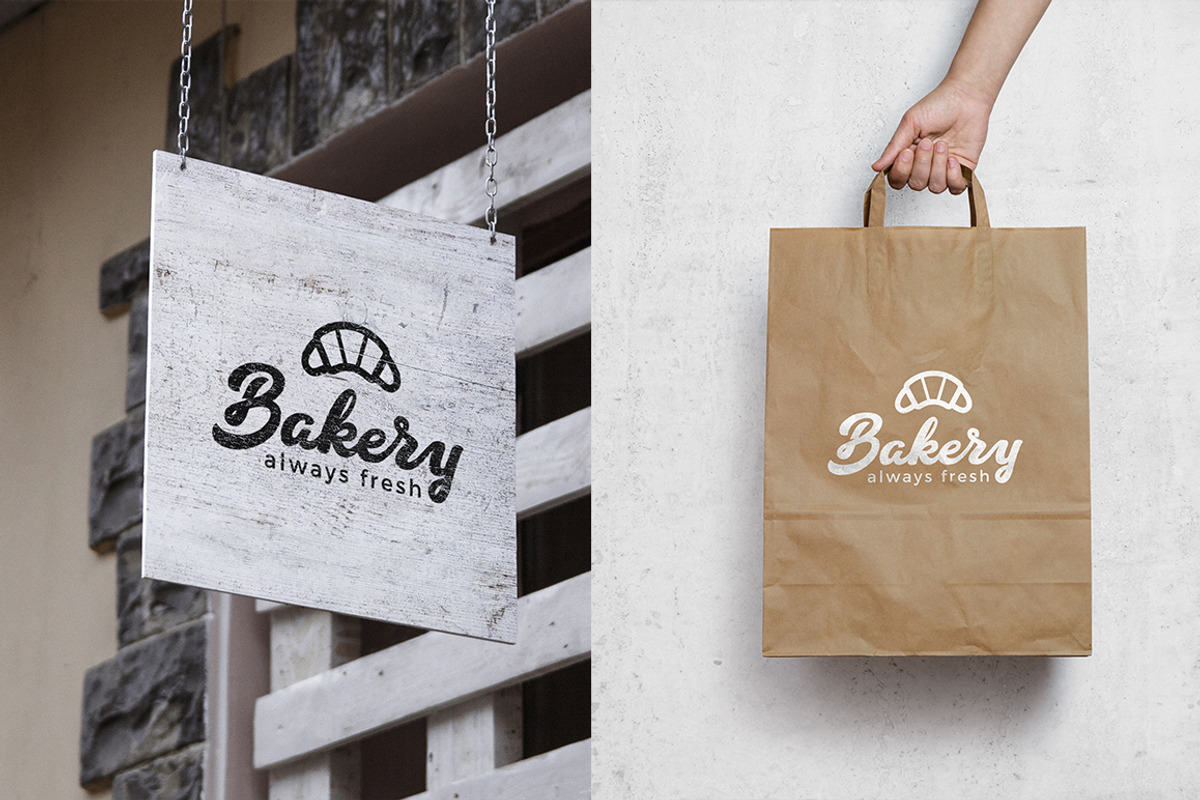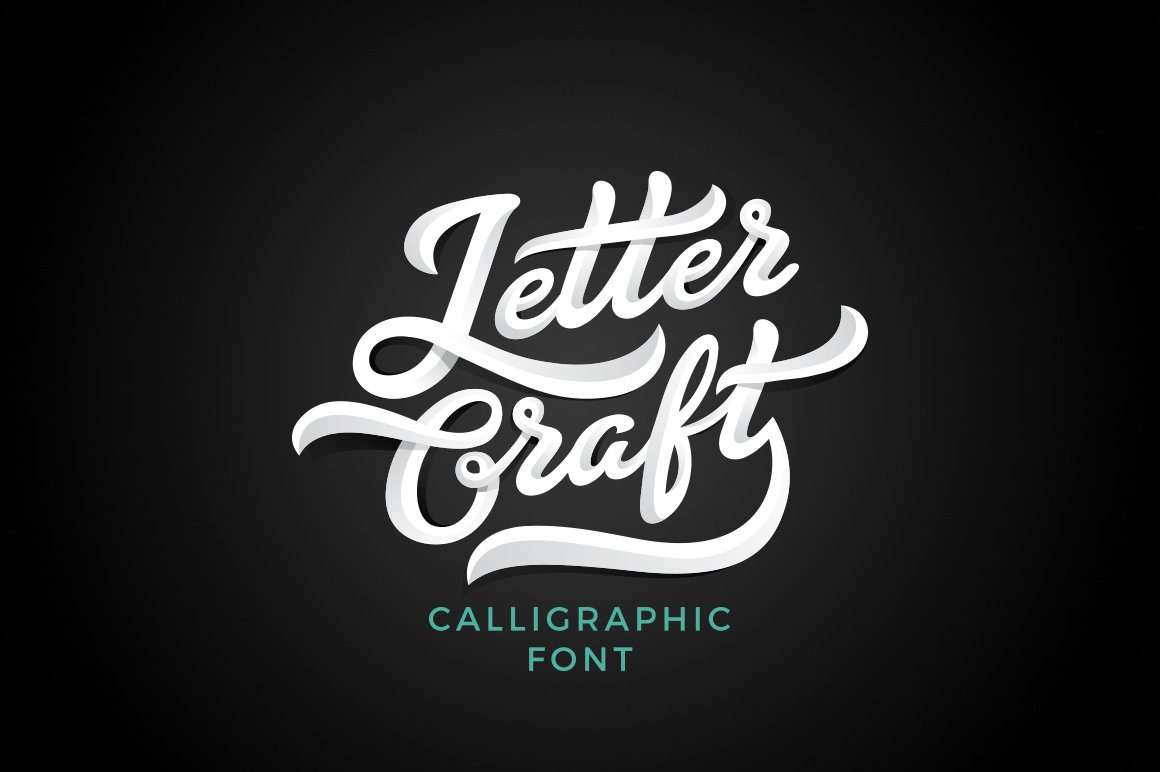
Letter Craft font
Letter Craft is calligraphic font made to create trendy Good-looking Lettering logos & compositions. There is also included vector file as it shown on image preview #8 and vector file with Shadows.
It consists of two types:
- Deco